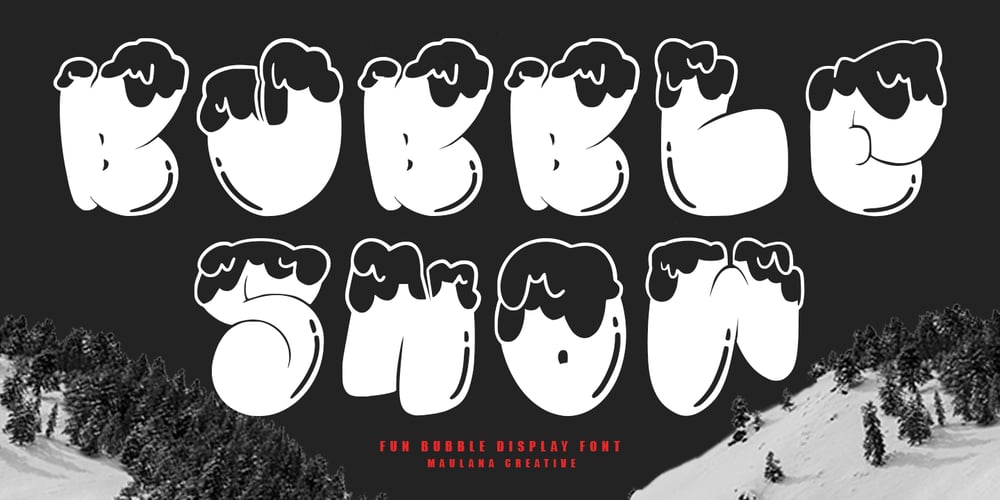
MC Bubble Snow Font Family was designed by Gilang Maulana and published by Maulana Creative. MC Bubble Snow contains 1 styles and family package options. Bubble Snow display font. With bold stroke and fun character to give you an extra creative work. Bubble Snow display font support multilingual language. This font is good for logo design, Social media, Movie Titles, Books Titles, a short text even a long text letter and good for your secondary text font with script or serif. Make a stunning work with Bubble Snow display font.Cheers,Maulana Creative